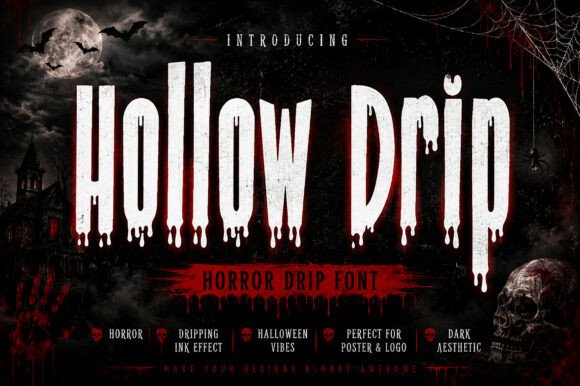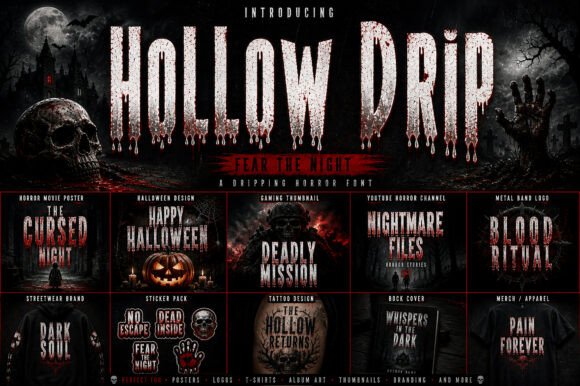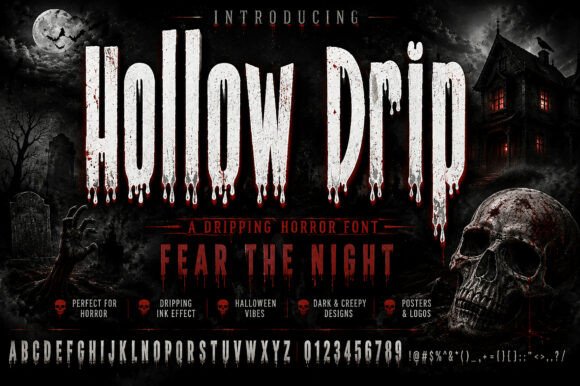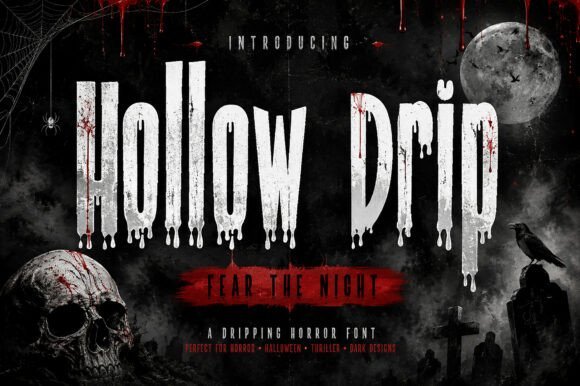
Introduction to Hollow Drip Font
Send a shiver down the spine of your audience with Hollow Drip, an atmospheric display font engineered specifically for the horror genre.
This high-impact typeface features ultra-tall, condensed letterforms that appear to dissolve under a heavy, visceral liquid melt Its absolute signature look is the hyper-detailed, oozing drop segments that weep from the baseline and counters of each character, complete with a weathered, distressed stone texture running through the main hulls.